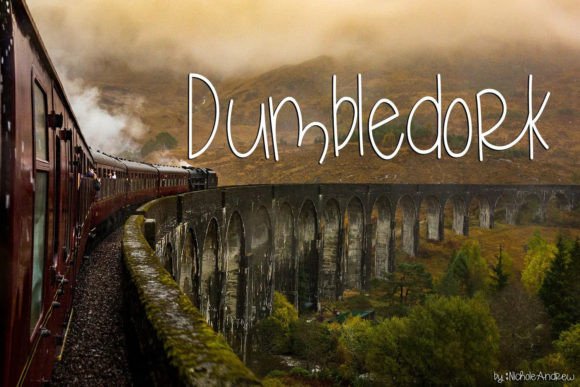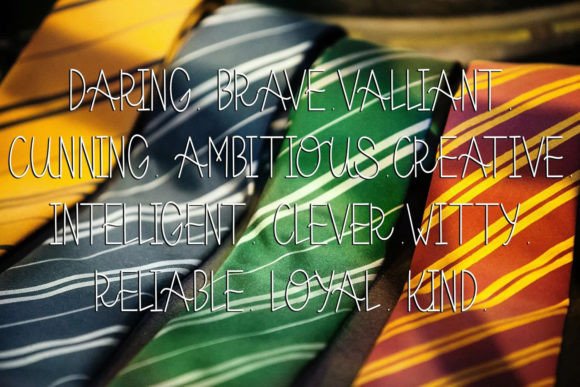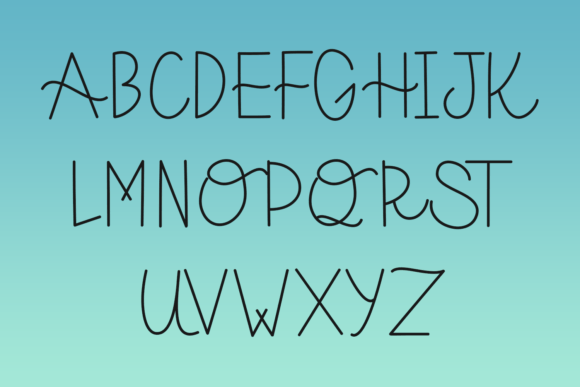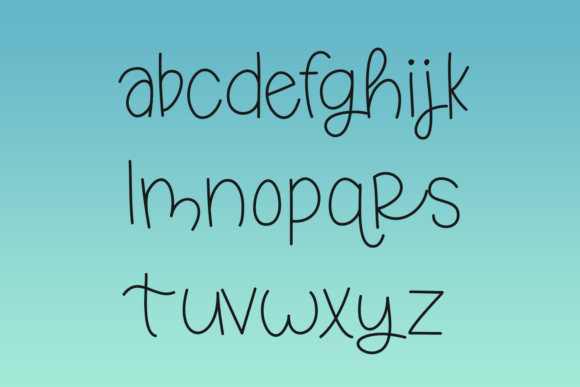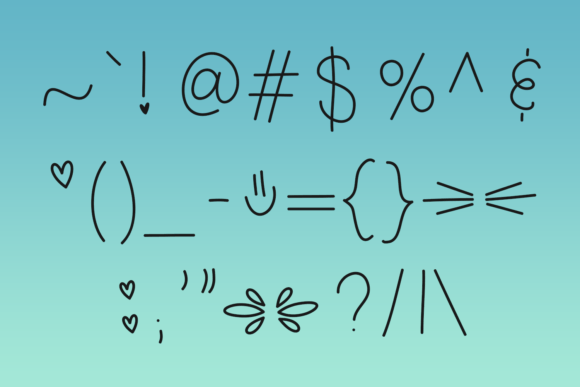
Dumbledork Font
About Dumbledork Font
“Dumbledork” is a fun and quirky handwritten font that adds a touch of personality to your projects. With its thin and playful style, this font is perfect for a variety of creative endeavors, including cards, invitations, notebooks, water bottles, stickers, designs, and decals.
The fun and quirky nature of Dumbledork makes it an ideal choice for projects where you want to infuse a sense of whimsy and individuality. Whether you’re working on digital graphics or tangible items, this font is crafted to bring a lighthearted and distinctive aesthetic to your text.
Imagine using Dumbledork for playful invitations, where its quirky handwritten style sets the tone for a fun event. Picture it on notebooks or water bottles, adding a touch of personality to everyday items. Whether applied to stickers or decals, Dumbledork is designed to be a font that enhances the overall charm of your projects.
In summary, Dumbledork is more than just a font; it’s a fun and quirky handwritten typeface that adds personality and whimsy to your designs. Let it be the choice that brings a sense of playfulness and individuality to your projects, making them stand out with a lighthearted and distinctive appeal.